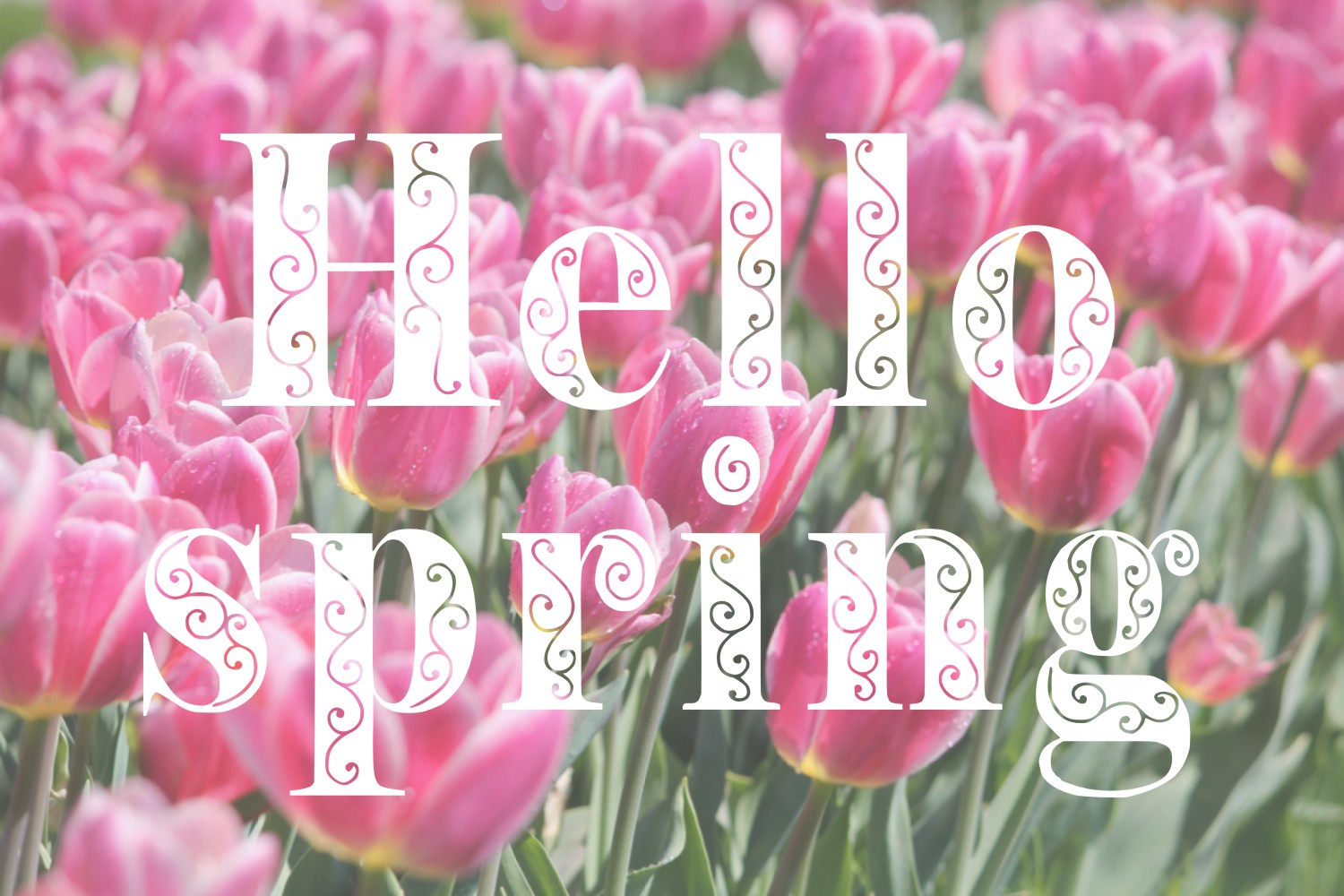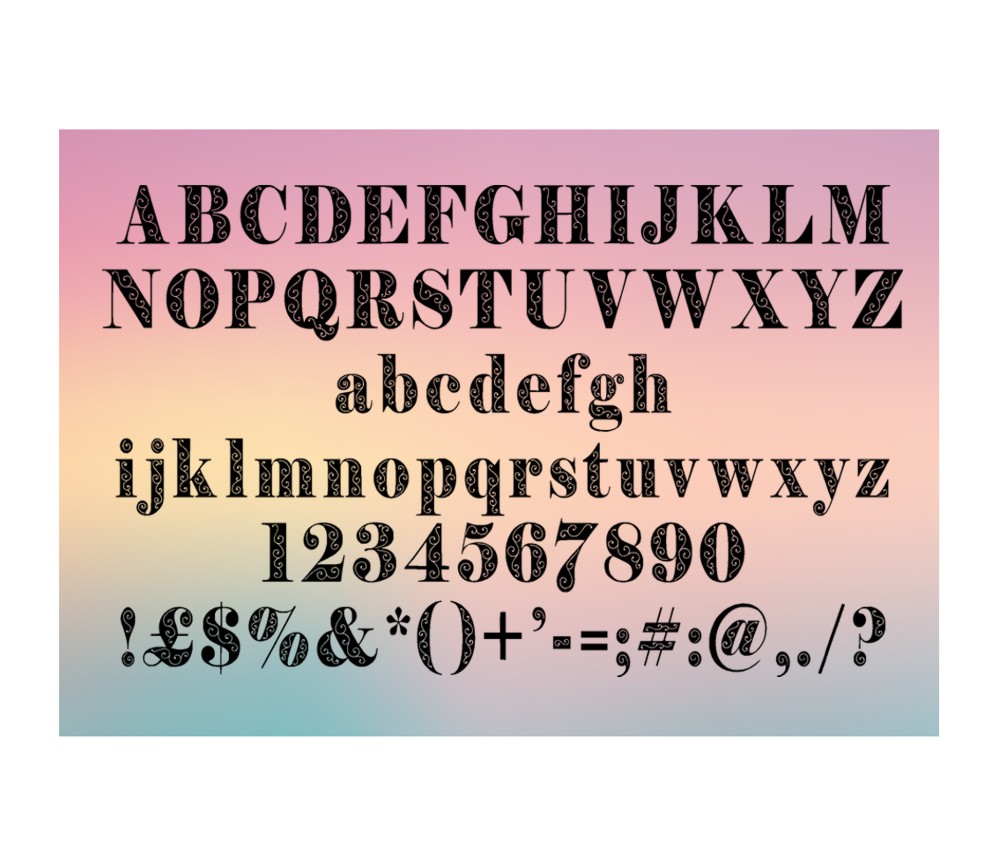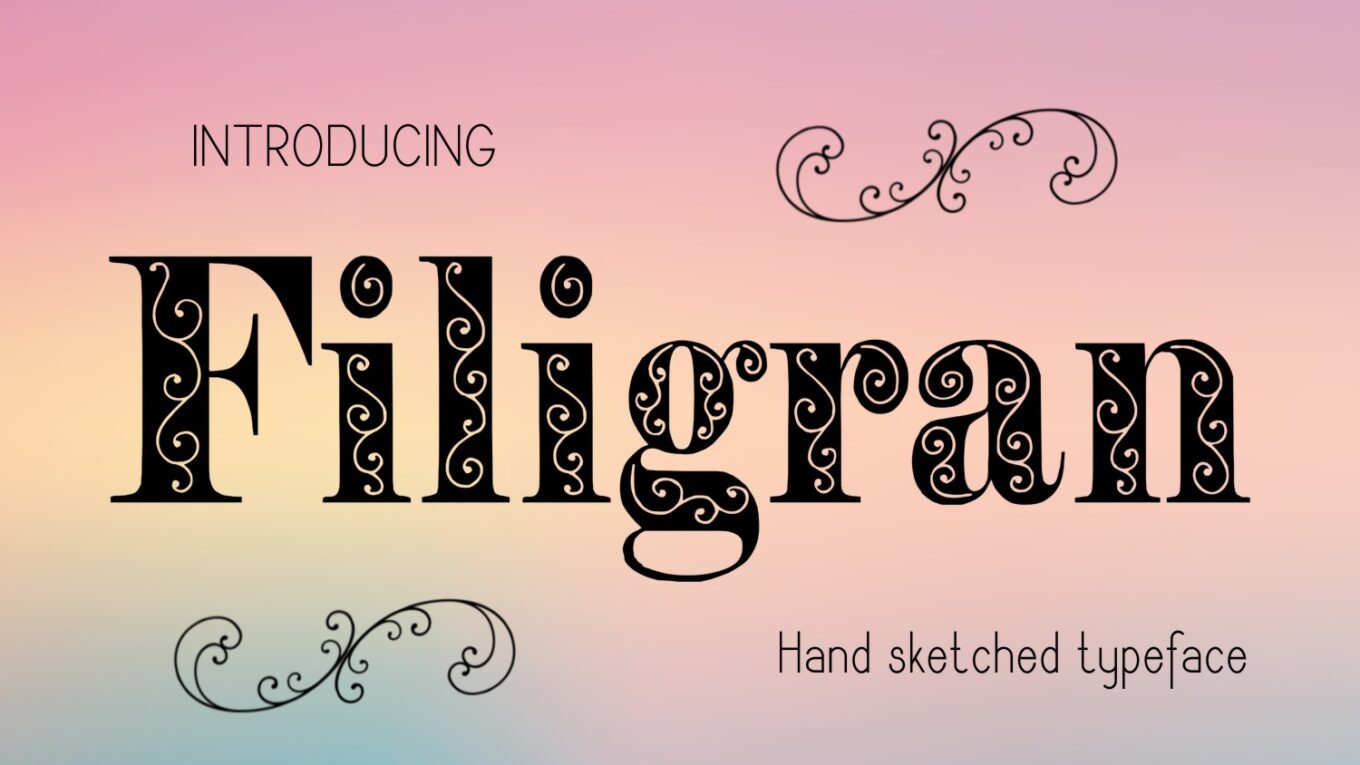
Filigran Font: Elevate Your Designs with Elegance and Sophistication
Filigran is a decorative font created by Eva Barabasne Olasz, a talented typographer and designer. This exquisite font is perfect for designers and crafters looking to add a touch of elegance and sophistication to their projects. In this article, we’ll explore the features, uses, and benefits of the Filigran font, and how it can elevate your designs to the next level.
The Story Behind Filigran Font
Eva Barabasne Olasz, a Hungarian-based designer, created Filigran with the intention of crafting a unique and beautiful font that would inspire creativity and add a touch of luxury to any design. With its intricate and delicate lines, Filigran is a true masterpiece that showcases Eva’s skill and attention to detail.
Key Features of Filigran Font
- Decorative and elegant: Filigran is a decorative font that features intricate lines and curves, making it perfect for designs that require a touch of sophistication.
- Unique and distinctive: Filigran’s unique design sets it apart from other fonts, making it an excellent choice for designers looking to create something truly original.
- Highly versatile: Filigran can be used in a variety of design projects, from wedding invitations and stationery to logos, branding, and packaging.
Uses of Filigran Font
Filigran is an incredibly versatile font that can be used in a wide range of design projects, including:
- Wedding invitations and stationery: Filigran’s elegant and sophisticated design makes it perfect for wedding invitations, save-the-date cards, and other stationery.
- Logos and branding: Filigran’s unique and distinctive design makes it an excellent choice for logos and branding projects that require a touch of luxury and sophistication.
- Packaging and product design: Filigran can be used to add a touch of elegance and sophistication to packaging and product design, making it perfect for high-end products.
- Signage and displays: Filigran’s decorative design makes it perfect for signage and displays that require a touch of luxury and sophistication.
Benefits of Using Filigran Font
Using Filigran font in your designs offers a range of benefits, including:
- Instant elegance and sophistication: Filigran’s decorative design instantly adds a touch of elegance and sophistication to any design.
- Unique and distinctive designs: Filigran’s unique design sets it apart from other fonts, making it an excellent choice for designers looking to create something truly original.
- High-quality and professional designs: Filigran’s high-quality design makes it perfect for professional designers and crafters who require a high level of detail and precision.
Tips for Using Filigran Font
Here are some tips for using Filigran font in your designs:
- Use it sparingly: Filigran’s decorative design can be overwhelming if used excessively. Use it sparingly to add a touch of elegance and sophistication to your designs.
- Pair it with simple fonts: Pair Filigran with simple fonts to create a beautiful contrast and add visual interest to your designs.
Filigran font is a beautiful and elegant decorative font that can elevate your designs to the next level. With its intricate lines and curves, Filigran is perfect for designers and crafters looking to add a touch of luxury and sophistication to their projects. Whether you’re creating wedding invitations, logos, or packaging, Filigran is an excellent choice for any design project that requires a touch of elegance and sophistication.